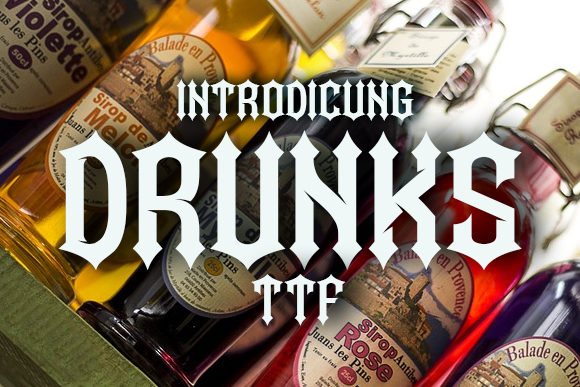
Are you tired of using the same old basic fonts for your designs? Look no further than Drunks Font! This captivating and modern font is the perfect choice for all your creative needs. Created by the talented designer Vladimir Nikolic, Drunks Font is a must-have for anyone looking to elevate their designs to the next level.
With its stunning gothic style, Drunks Font is guaranteed to catch the eye of your audience. Whether you're designing a poster, flyer, banner, or print, this font will add a touch of elegance and uniqueness to your creations. Say goodbye to boring and hello to bold with Drunks Font!
What sets Drunks Font apart from other fonts is its incredible versatility. It seamlessly blends with any design, making it the best font for memes in the modern era. Express yourself and let your creativity run wild with this font. The possibilities are endless!
But Drunks Font is not just about looks. It's also about emotions. Imagine the impact your designs will have on your audience when they see the powerful and captivating words written in this font. It evokes a sense of mystery, sophistication, and edginess that will leave a lasting impression.
Remember, the world of design is constantly evolving, and staying ahead of the curve is crucial. Drunks Font is your secret weapon to stay on top of the latest trends and create designs that are both eye-catching and memorable.
Take the leap and experience the magic of Drunks Font. Elevate your designs, express your emotions, and make a lasting impression. It's time to unleash your creativity and let Drunks Font be your guide.